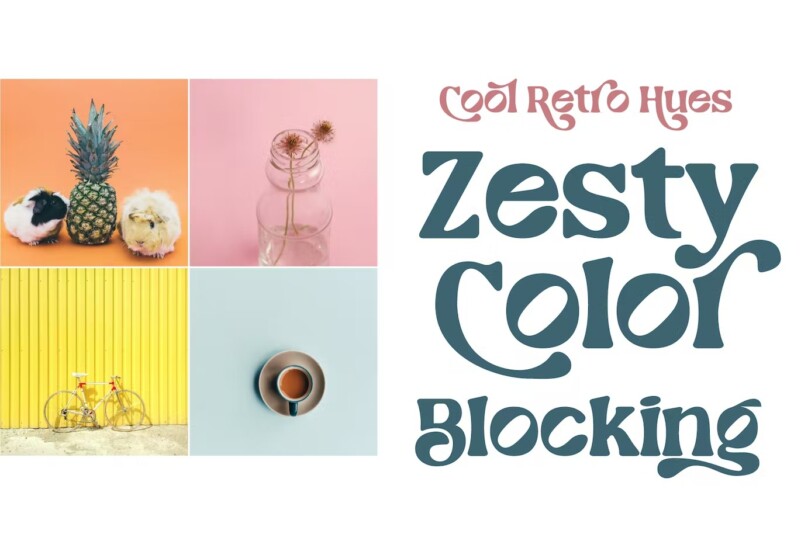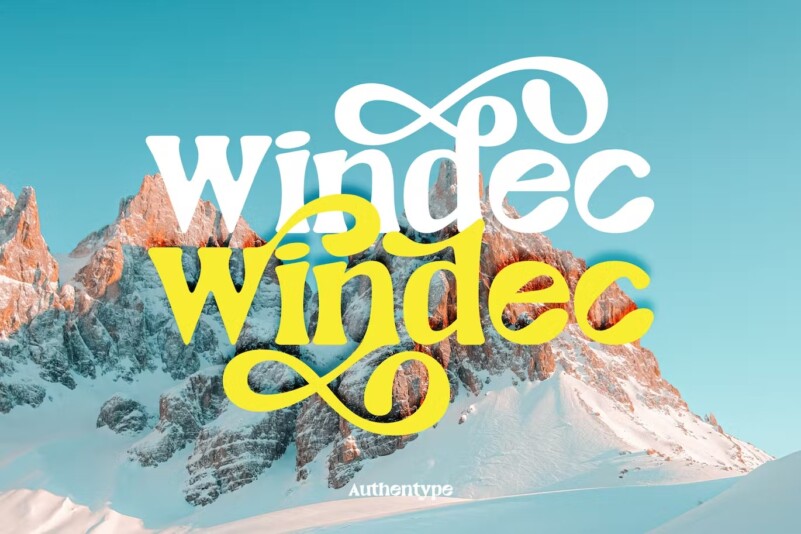
Windec – Serif Display Font
Windec – Serif Display Font style that takes the shape of flower petals and beautiful curves to form a font. Windec font can be used for eco-friendly and nature-loving products.
Windec – Serif Display Font with discretionary ligatures that give each word a different shape. Also contains an elegant, contrasting and clean sash, perfect for Logos, posters and various types of promotional materials.